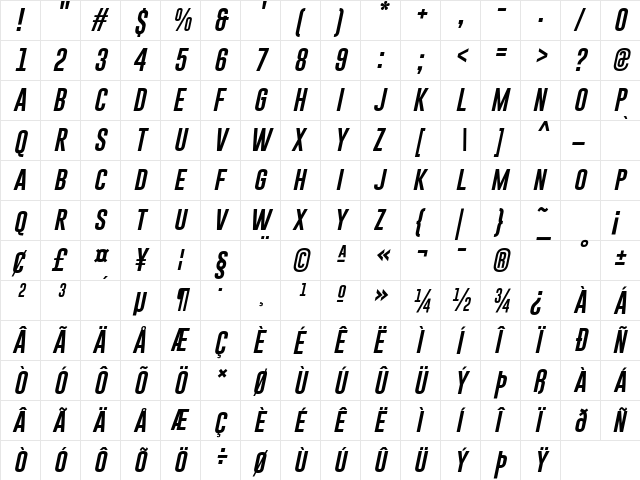
Gobold Italic
Design Context for Gobold Typeface
Gobold is a composed and adaptable typeface that performs quietly and consistently across a wide range of design contexts. The dynamic lean of this cut emphasises speed and emphasis in any layout. Its bold stroke weight gives it real presence on the page.
Pro Tip: Try Gobold for annotation and caption copy alongside an upright companion — the contrast in angle creates a dynamic but ordered typographic system.